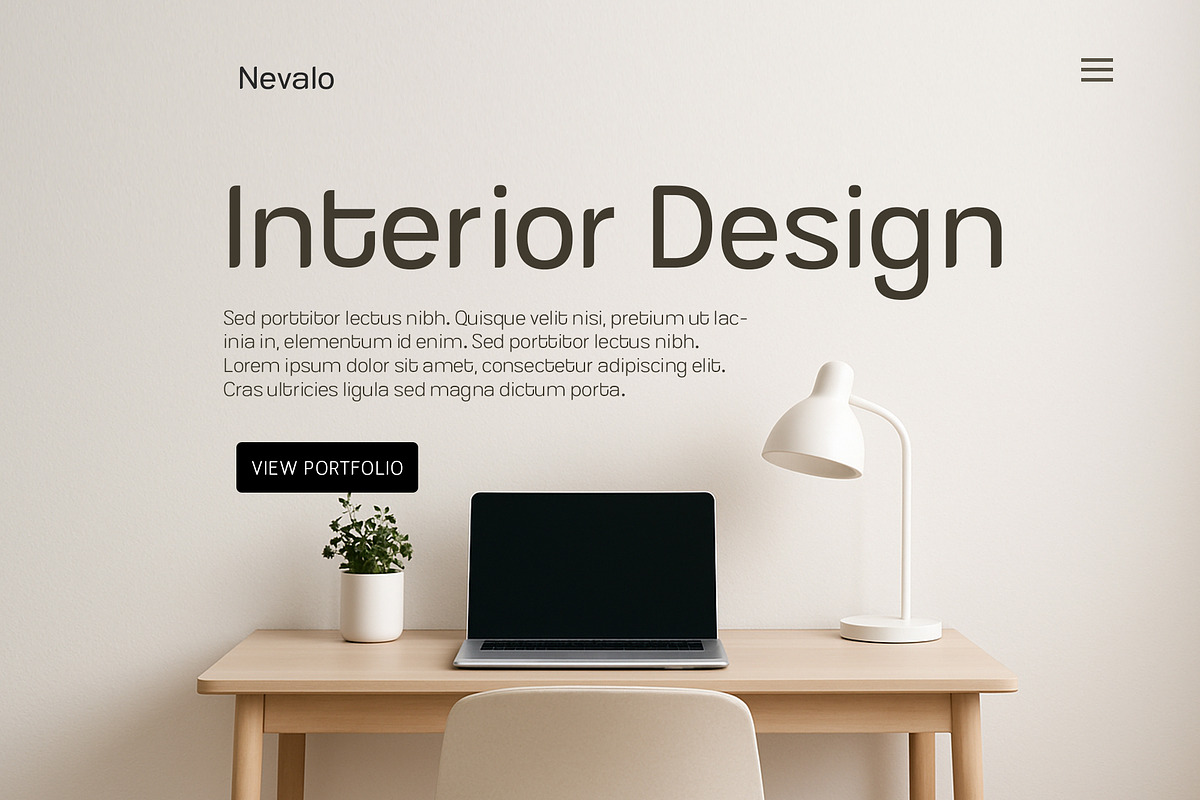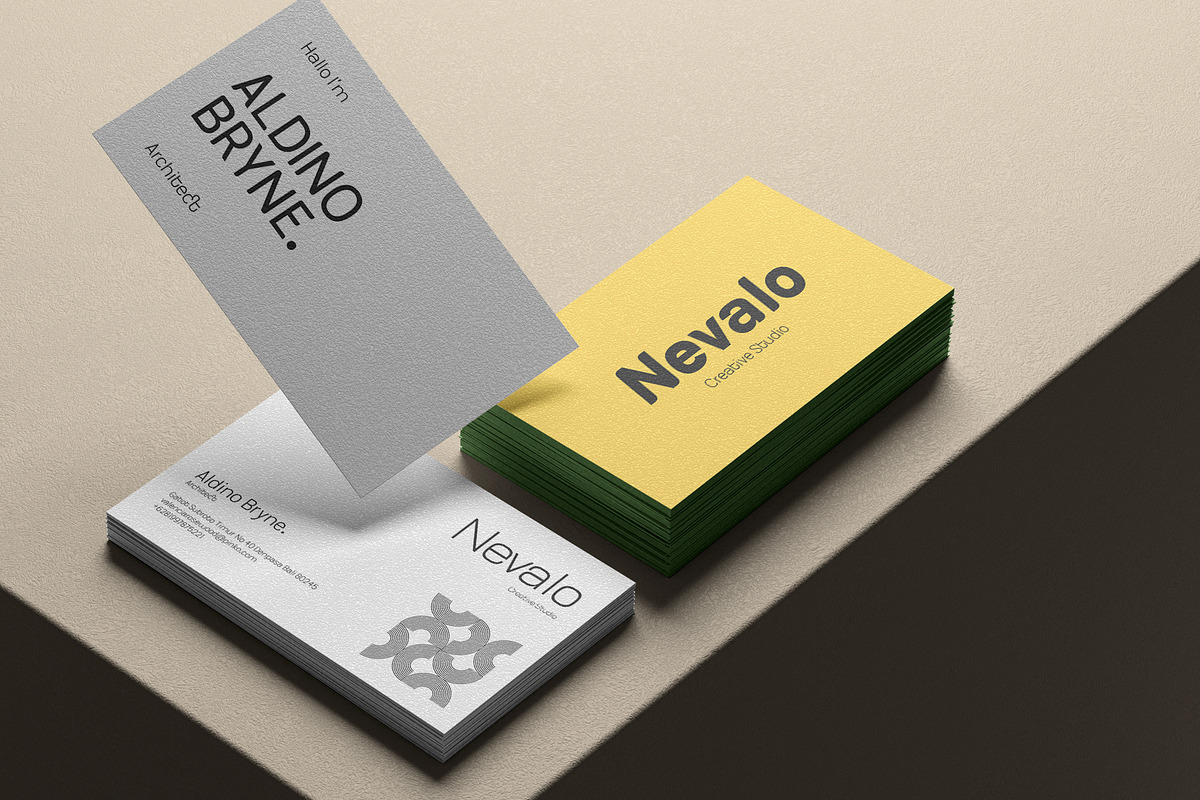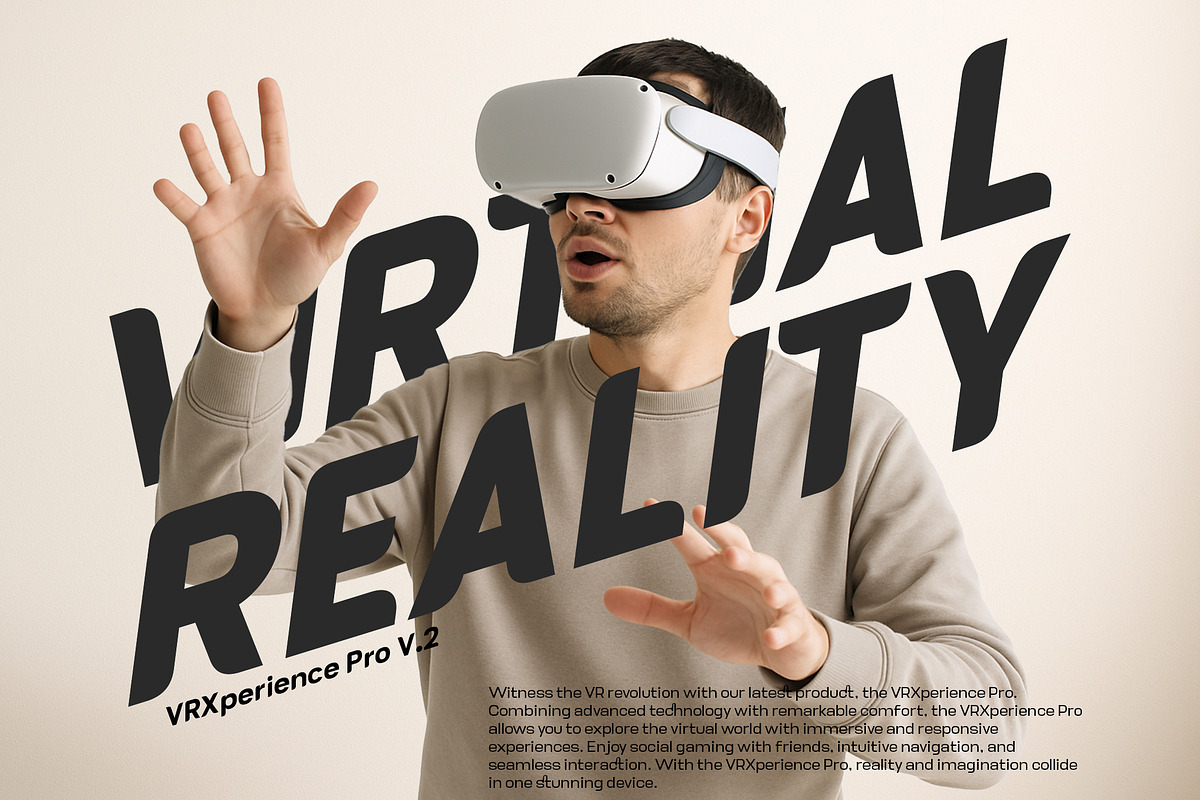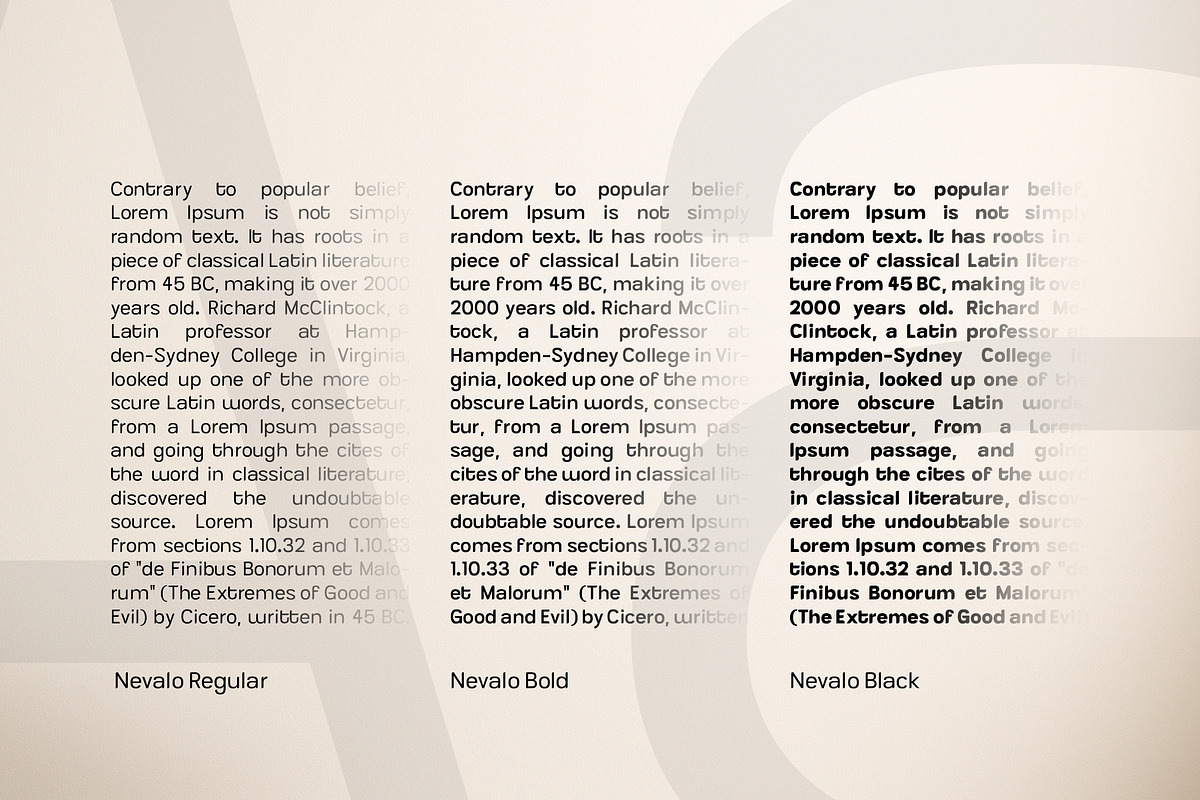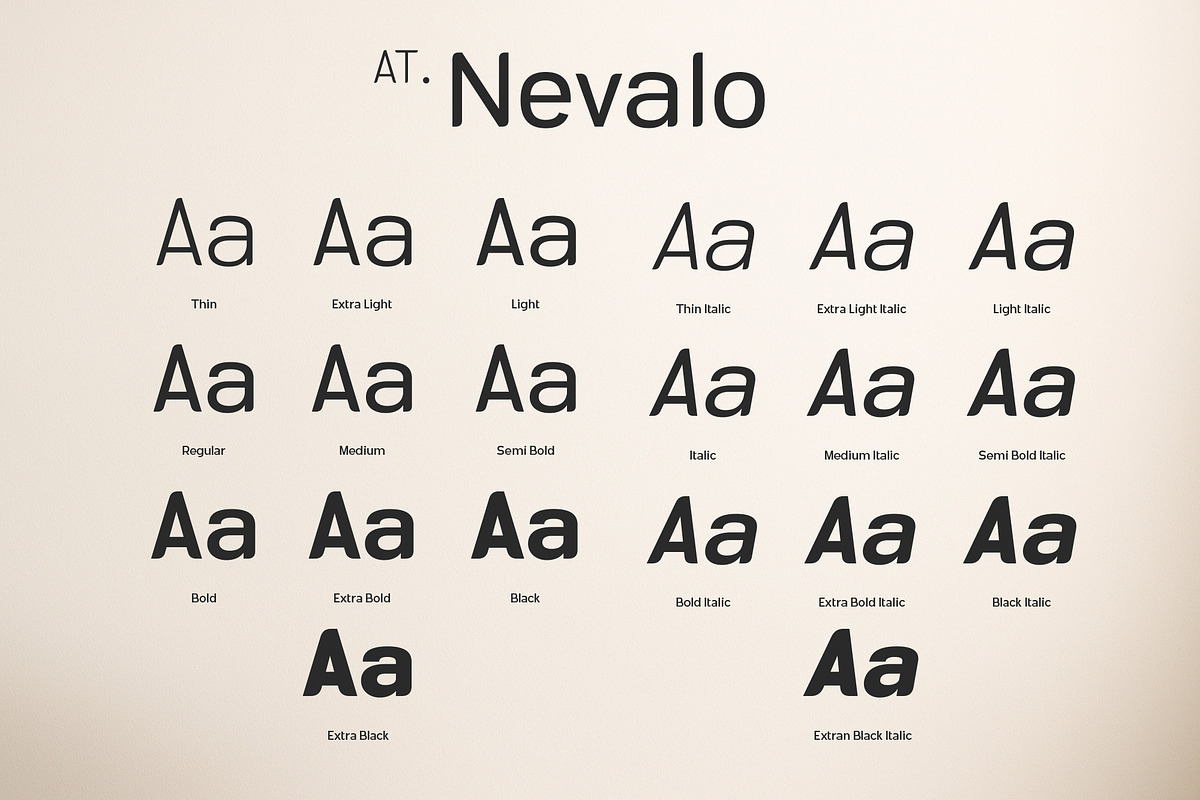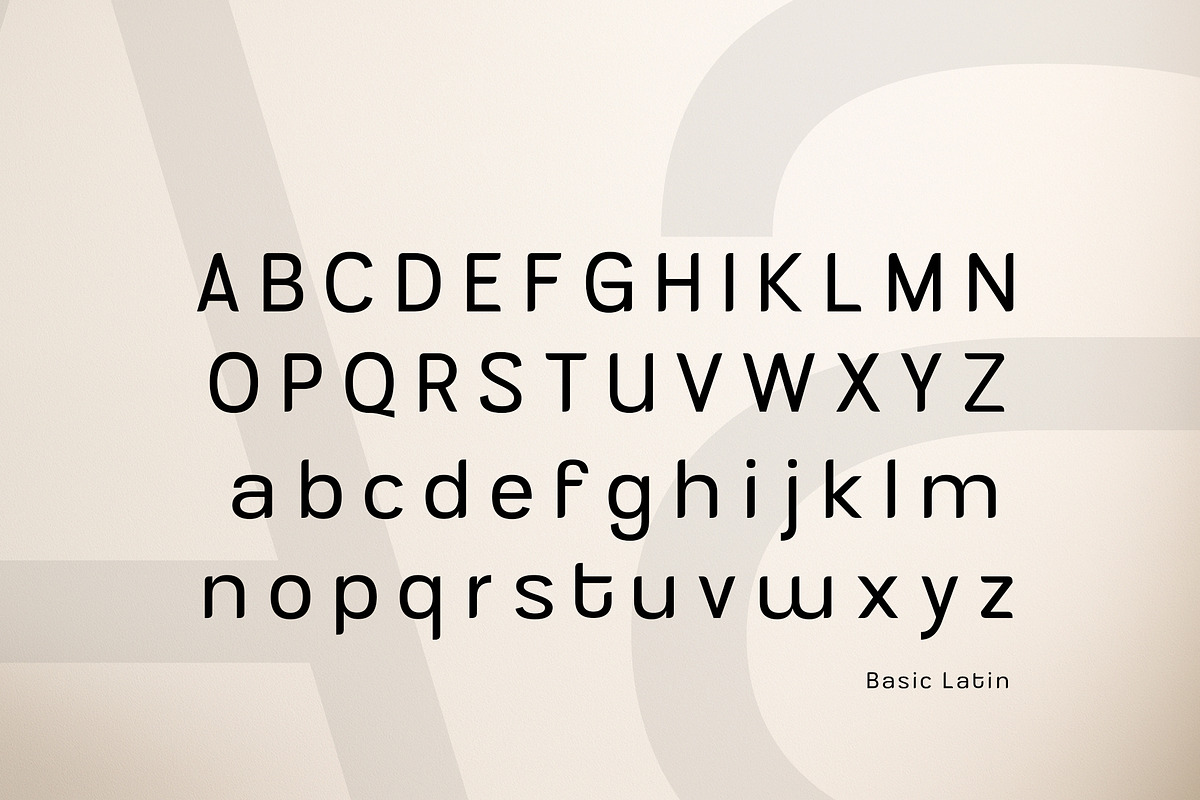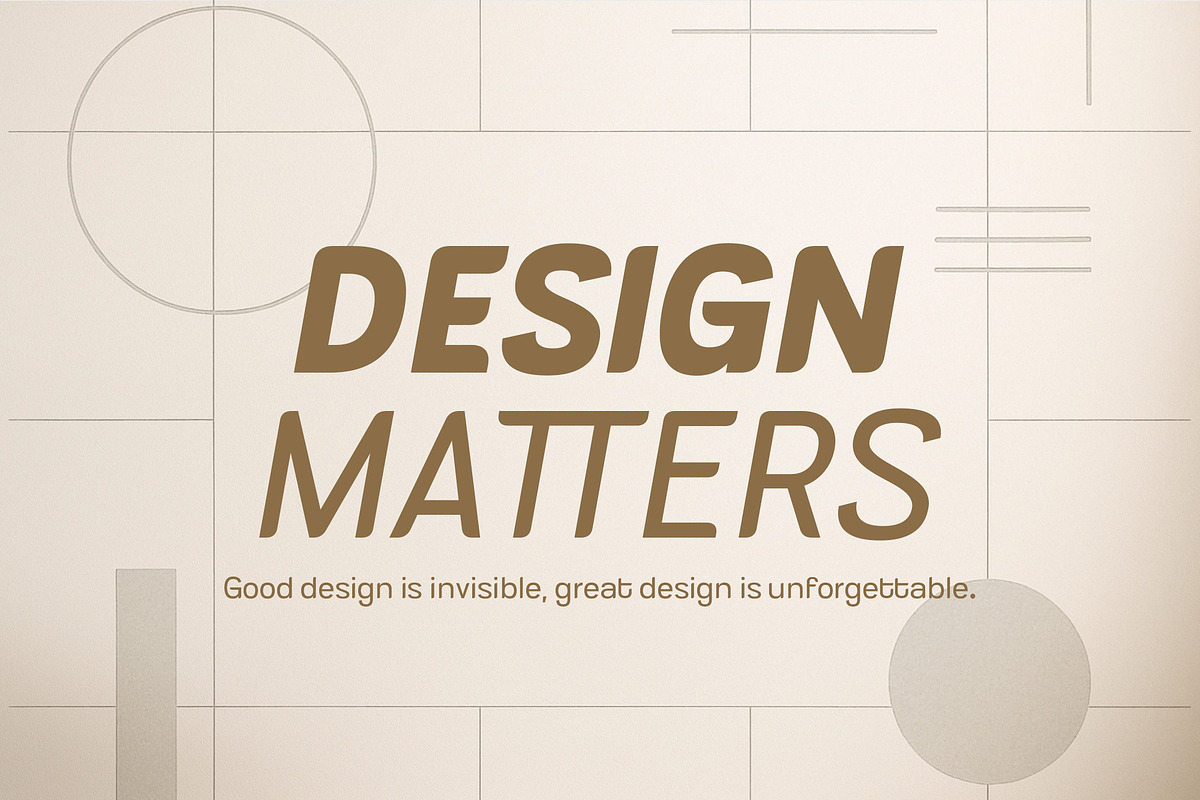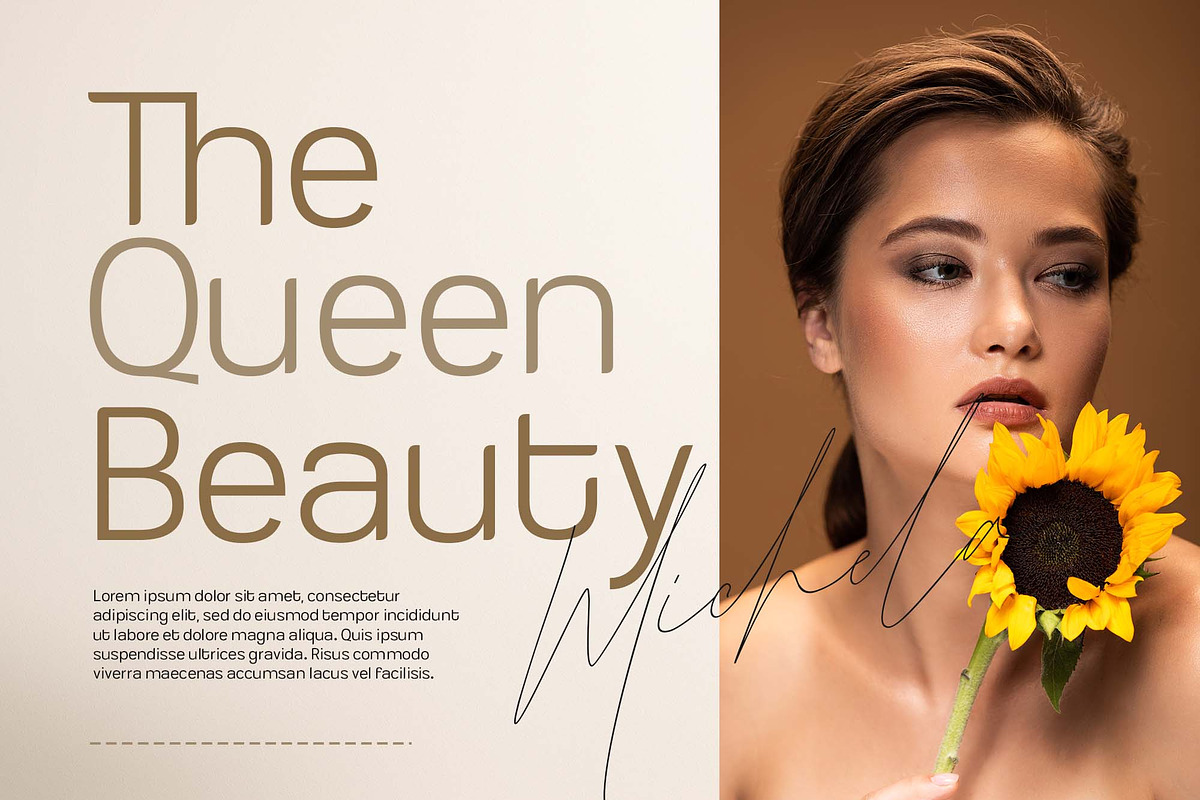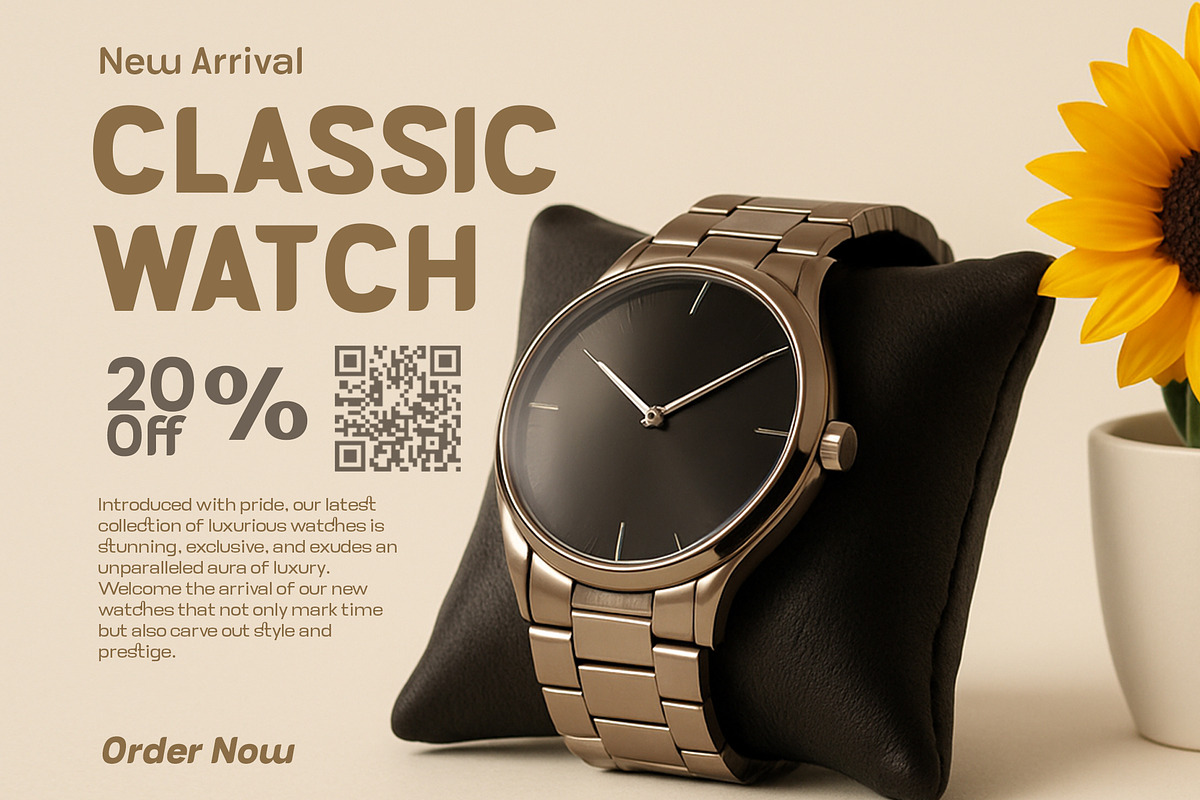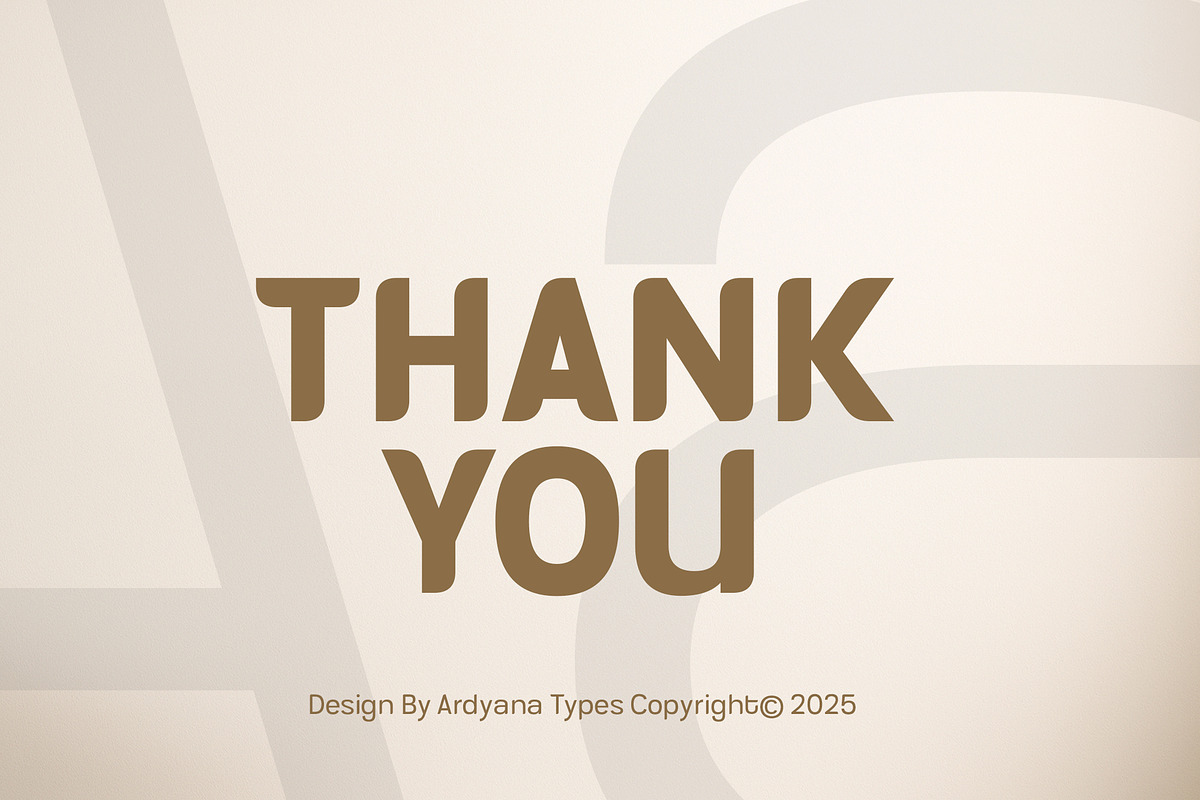
AT Nevalo
AT.Nevalo is a modern and highly versatile sans serif font family featuring 20 carefully crafted styles, ranging from Thin to Extra Black—including matching italics. Designed with clarity and functionality in mind, AT.Nevalo offers a perfect balance between minimalist elegance and bold impact.
Its clean geometric structure, refined curves, and consistent rhythm make it an ideal choice for both screen and print use. Whether you’re working on branding, editorial design, tech interfaces, or motion graphics, AT.Nevalo delivers precision and professionalism every time.
- 20 font styles (10 weights + matching italics)
- OpenType features: alternates, ligatures, advanced numerals
- Multilingual support (Extended Latin)
- Designed for modern branding, editorial, UI/UX, and more
- Branding & logos
- Editorial design & magazines
- Posters & visual campaigns
- Websites, UI/UX design
- Film titles & creative media
- Product packaging & signage